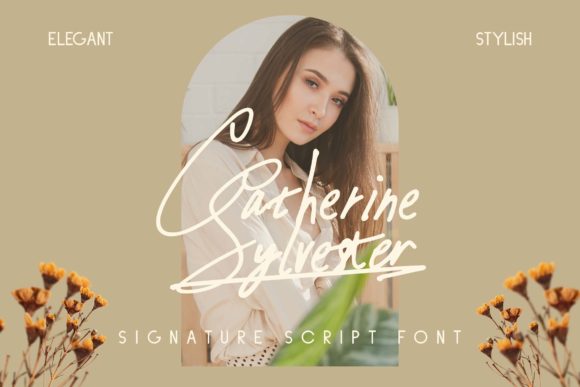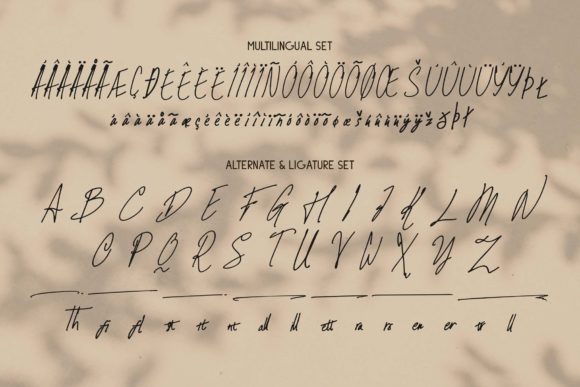
About Catherine Font
Catherine is an exquisite script font that effortlessly captures a sense of timeless elegance and sophistication. Its delicate and thin letterforms lend a touch of refinement to any project, making it an ideal choice for a diverse range of design applications.
With its stylish and graceful strokes, Catherine exudes an air of luxury and charm that is perfect for creating a signature look. Whether you’re designing a personal logo, an upscale fashion brand, or an exclusive event invitation, this font adds a sense of prestige and exclusivity that resonates with your target audience.
Catherine’s versatility shines through its ability to adapt to various design contexts. Its clean and modern aesthetic makes it equally suitable for contemporary projects as well as those with a classic and timeless vibe. From modern branding to classic wedding invitations, Catherine seamlessly transitions between different styles, offering a level of adaptability that is highly valuable for designers.
The font’s thin letterforms contribute to its overall sense of delicacy and sophistication. The slender strokes create an eye-catching contrast that draws attention and adds a dynamic visual element to your designs. This makes Catherine an excellent choice for advertising materials, logos, and any project where you want to make a memorable impact.
Whether you’re aiming for a luxurious and high-end look or a modern and chic vibe, Catherine’s versatility makes it a go-to option. Its clean lines, elegant curves, and thin letterforms lend themselves well to a wide range of design concepts, allowing you to create stunning visuals that leave a lasting impression.
In summary, Catherine is a stylish and thin-script font that encompasses the essence of luxury, modernity, and timelessness. Its adaptability and wide range of applications make it a valuable asset for designers seeking to elevate their projects with a touch of sophistication and class.